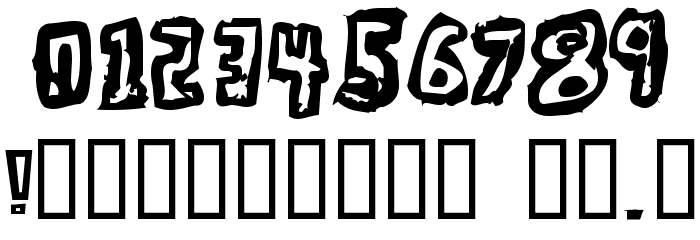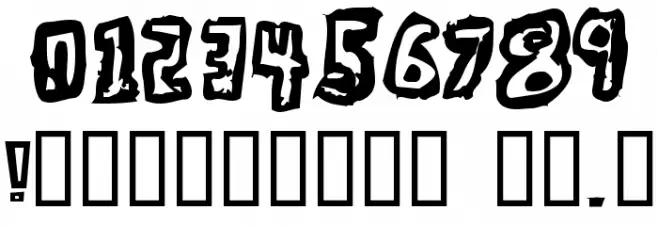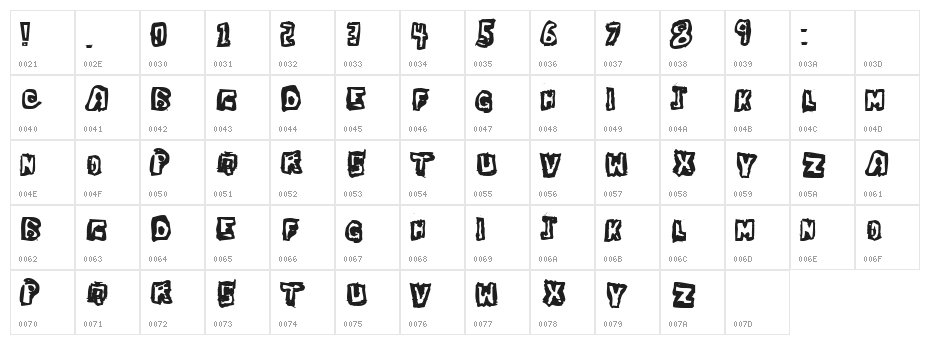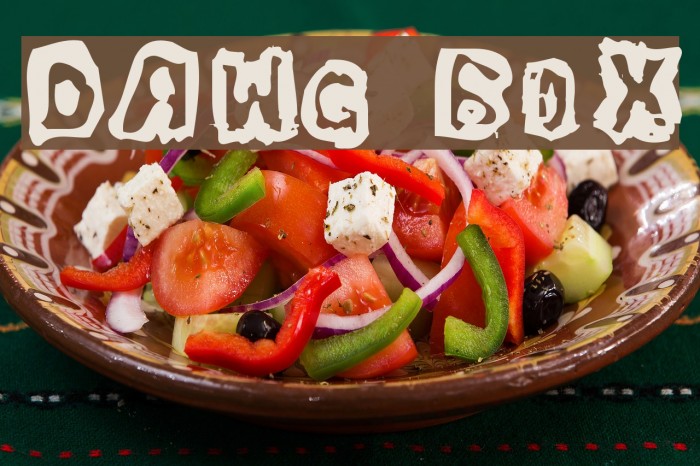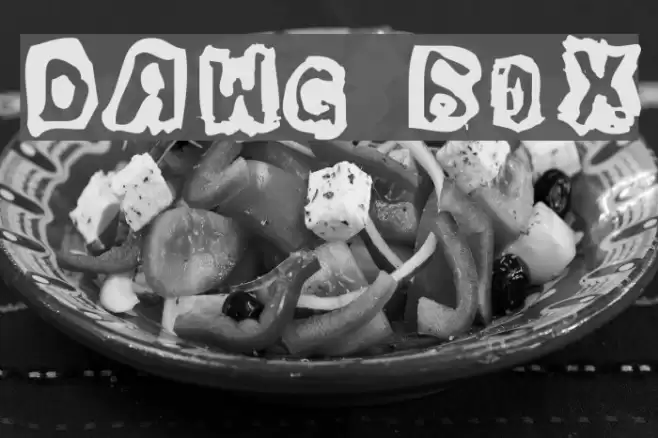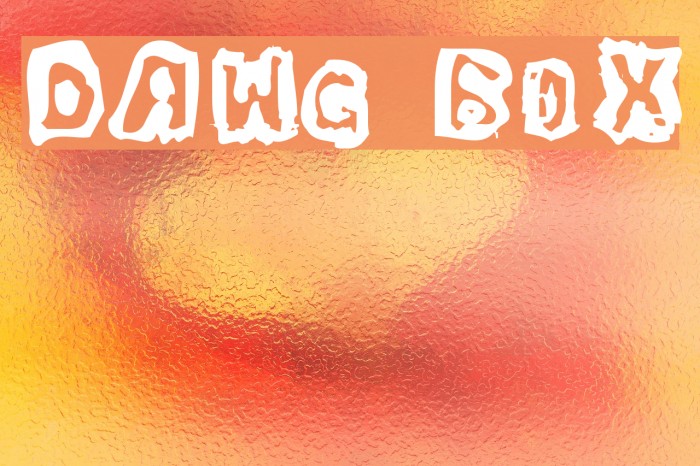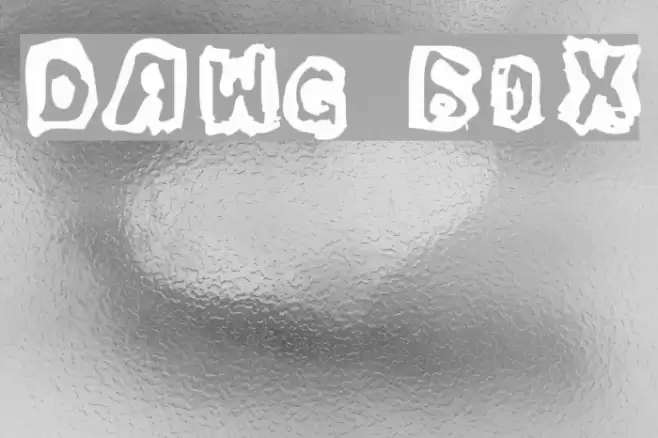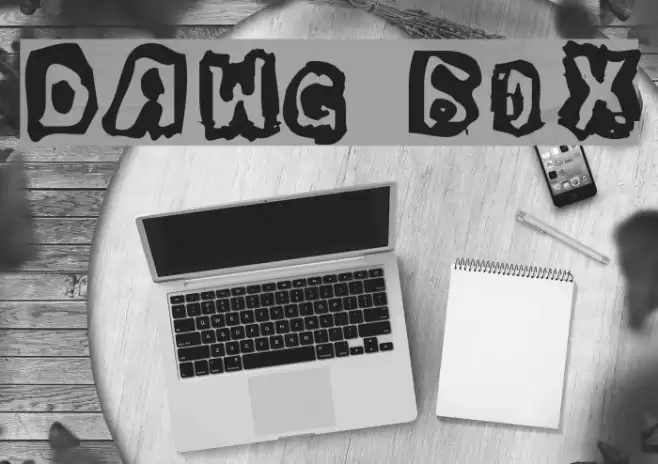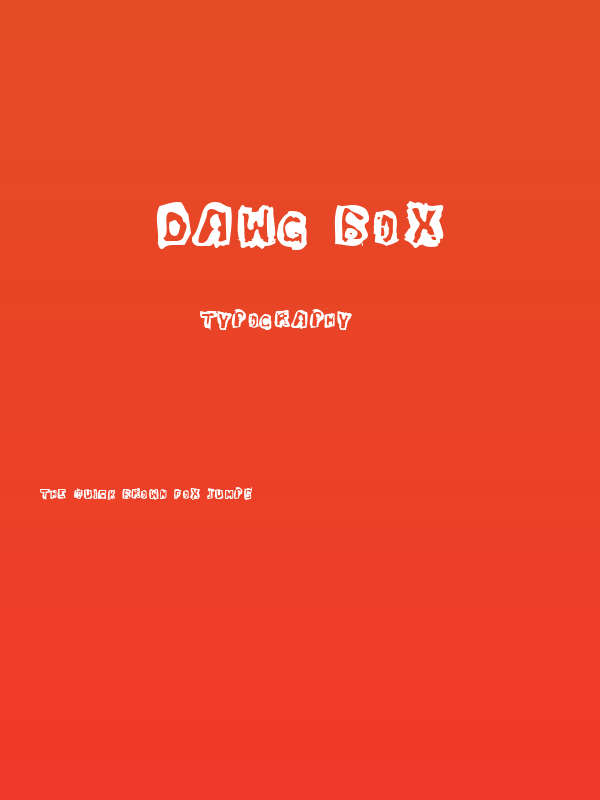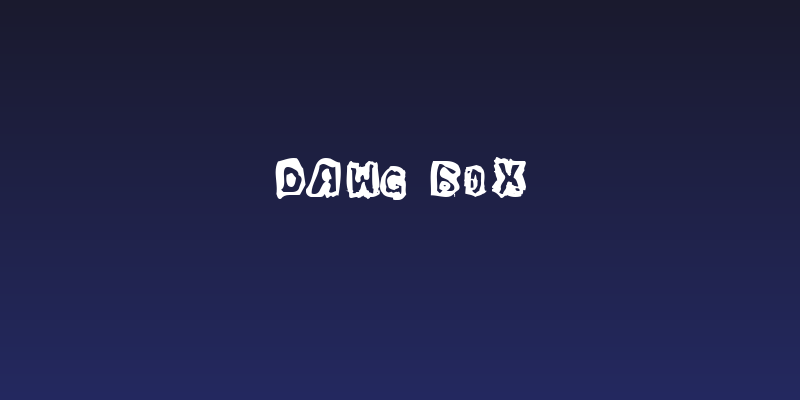
Dawg Box Font
Dawg Box Description
This font features a bold and rugged style with a hand-drawn appearance. The characters are outlined with a thick, uneven stroke, giving them a graffiti-like, urban feel. The letters have a playful and dynamic quality, with irregular edges and a slightly distorted form that adds to their unique character. This font is highly decorative, making it ideal for eye-catching designs. The numbers and special characters follow the same bold and irregular pattern, ensuring consistency across all elements.
| Overall Style | Urban, Graffiti, Playful |
| Proposed Projects | Ideal for street art designs, music album covers, urban-themed posters, and edgy branding projects. |